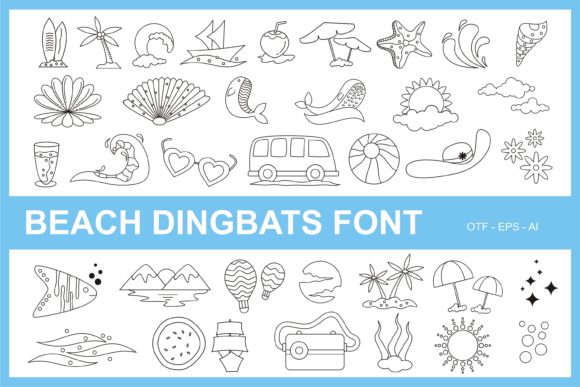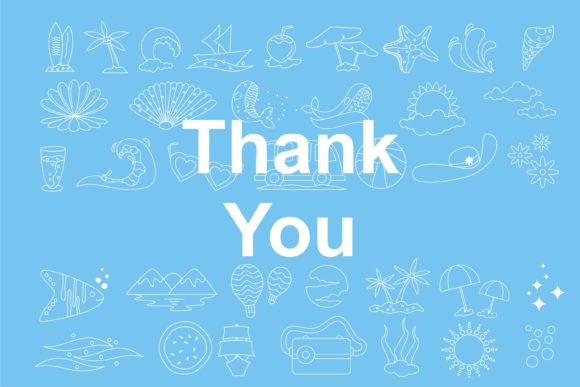
Beach Dingbats Font
About Beach Dingbats Font
“Beach Dingbats” is a cool and useful dingbats font that captures the essence of the beach and coastal vibes. With its collection of beach-themed symbols and icons, this font can be a valuable asset in various creative projects, adding a touch of fun and relaxation.
Whether you’re designing summer party invitations, travel brochures, beach-themed posters, or any other project related to the beach or coastal lifestyle, “Beach Dingbats” has the potential to enhance your creations. The symbols in this font represent various beach elements such as seashells, palm trees, waves, suns, flip-flops, and more, allowing you to create visually appealing designs that evoke a sense of the seaside.
The versatility of “Beach Dingbats” allows you to use it in different design contexts. For example, in vacation advertisements or travel guides, the font can add a playful and inviting touch, instantly conveying the idea of relaxation and enjoyment. In beach-themed party invitations or summer event promotions, the font can set the mood and create anticipation for a fun-filled gathering.
Apart from print designs, “Beach Dingbats” can also be incorporated into digital projects such as social media graphics, website elements, or blog headers. It adds a visual element that brings a refreshing and coastal vibe to your online presence, attracting attention and creating a connection with your audience.
To make the most of “Beach Dingbats,” consider combining it with complementary typography, beach-inspired colors, and other relevant imagery. This will help create a cohesive and immersive design that captures the spirit of the beach.
In summary, “Beach Dingbats” is a cool and useful dingbats font that brings the beach and coastal vibes to your designs. Whether you’re working on print materials, digital graphics, or any other creative project, this font has the potential to enhance your creations and evoke a sense of relaxation and enjoyment. Embrace the beach spirit and let “Beach Dingbats” add a touch of coastal charm to your designs.